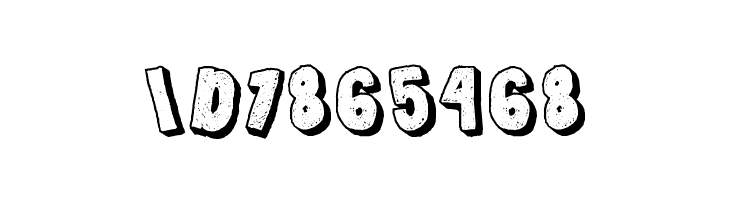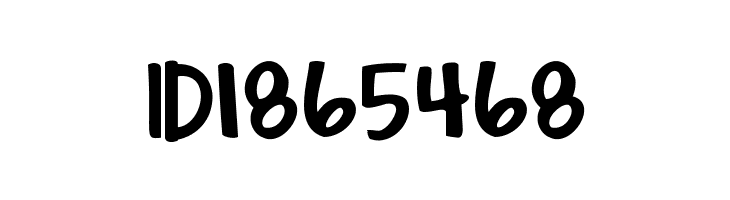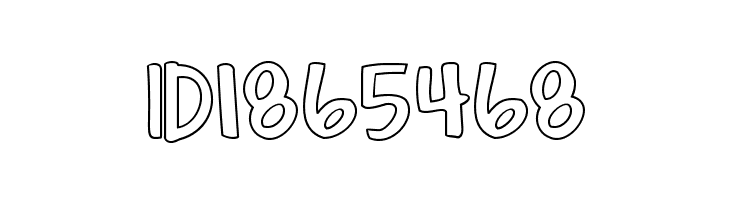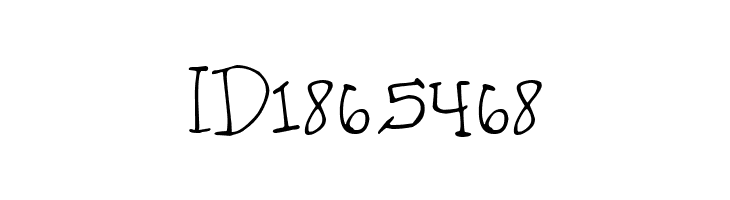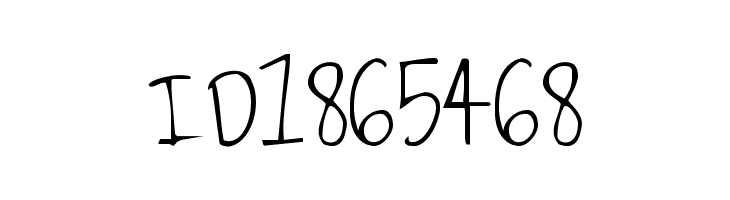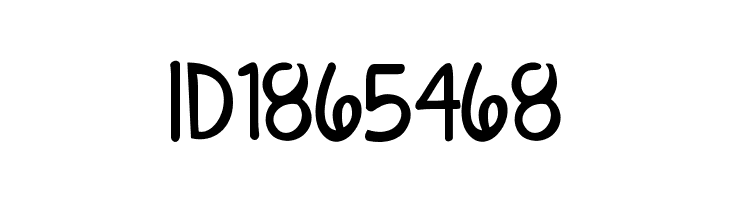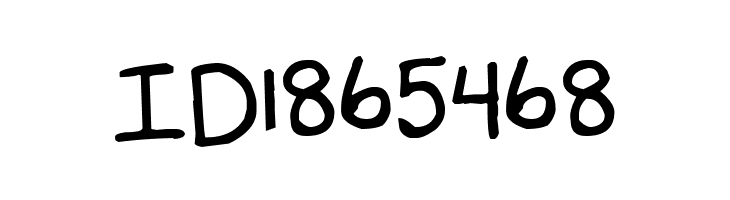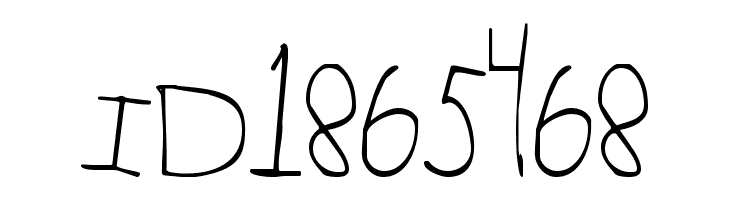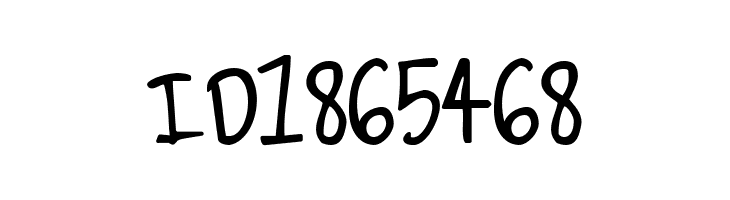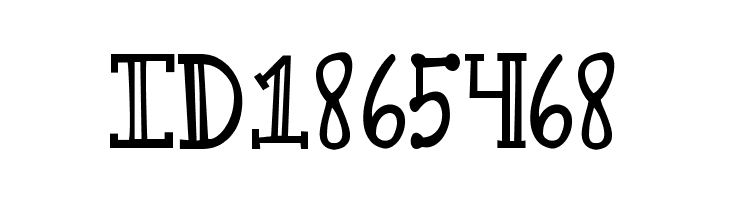
A playful handwritten font with irregular strokes and a whimsical style.
A playful and whimsical font with bold strokes and rounded terminals.
A playful, handwritten font with quirky, irregular letterforms.
A playful, hand-drawn font with a casual and friendly appearance.
A playful, hand-drawn font with rounded edges and a casual style.
A playful, bold font with rounded, thick strokes and a whimsical touch.
A playful, outlined font with a hand-drawn, shadow-like appearance.
A lively, handwritten font with a playful and informal style.
A bold, playful handwritten font with a casual and friendly style.